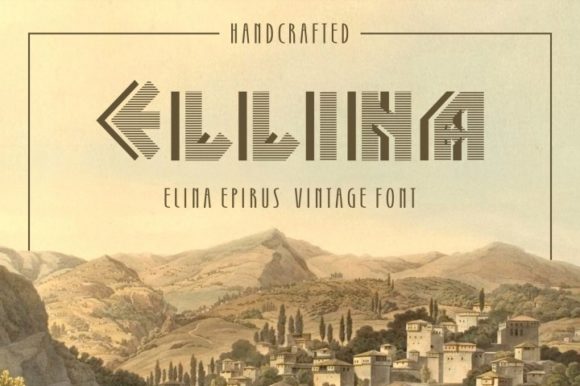
Introducing Elina Epirus Font: A Timeless Ancient Greek-Inspired Typeface
Are you a designer or crafter looking for a unique and captivating font to elevate your creative projects? Look no further than the Elina Epirus Font, a stunning typeface inspired by the ancient Greek designs of the writing system and alphabet. This font is a masterful recreation of the classic Greek lettering styles, perfect for adding a touch of elegance and sophistication to your designs.
The History Behind Elina Epirus Font
Elina was an ancient Greek town in the region of Epirus, a land known for its rich history, breathtaking landscapes, and vibrant culture. The Elina Epirus Font draws inspiration from this fascinating era, bringing the essence of ancient Greece to life through its striking letters and unique style. This font is a beautiful tribute to the ingenuity and craftsmanship of the ancient Greeks, whose writing system has had a lasting impact on the world of typography.
What Makes Elina Epirus Font So Special?
The Elina Epirus Font boasts an array of distinctive features that set it apart from other typefaces. Its letters are carefully crafted to reflect the intricate and ornate style of ancient Greek writing, with subtle nuances and details that evoke a sense of history and tradition. This font is perfect for designers and crafters seeking to add a touch of classic sophistication to their work, whether it’s for a logo, a poster, a website, or any other creative project.
Key Features of Elina Epirus Font
- Ancient Greek Inspiration: The Elina Epirus Font is deeply rooted in the ancient Greek writing system and alphabet, offering a unique and authentic look.
- Unique Style: The font’s striking letters and ornate details make it stand out from other typefaces, adding a touch of elegance to any design.
- High Versatility: Elina Epirus Font is perfect for a wide range of creative projects, from logos and posters to websites and digital media.
- Ease of Use: This font is easy to read and works well in various sizes, making it a practical choice for designers and crafters.
How to Use Elina Epirus Font in Your Designs
Integrating the Elina Epirus Font into your creative projects is simple and straightforward. Here are a few ideas to get you started:
- Logos and Branding: Use Elina Epirus Font to create a memorable and distinctive logo that reflects your brand’s values and personality.
- Posters and Flyers: Add a touch of classic elegance to your posters and flyers with this stunning font, perfect for promoting events, products, or services.
- Web Design: Incorporate Elina Epirus Font into your website design to create a unique and captivating online presence.
- Digital Media: Use this font in your digital media projects, such as video scripts, social media graphics, and more.
The Elina Epirus Font is a timeless and captivating typeface that offers designers and crafters a unique opportunity to add a touch of ancient Greek elegance to their creative projects. With its striking letters, unique style, and high versatility, this font is sure to inspire and elevate your designs. Whether you’re working on a logo, poster, website, or digital media project, Elina Epirus Font is an excellent choice for anyone seeking to create something truly special.